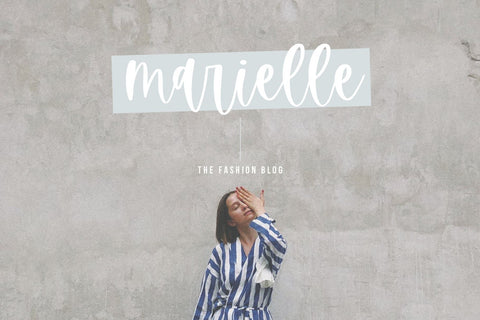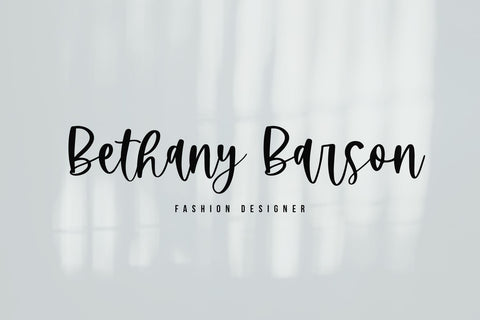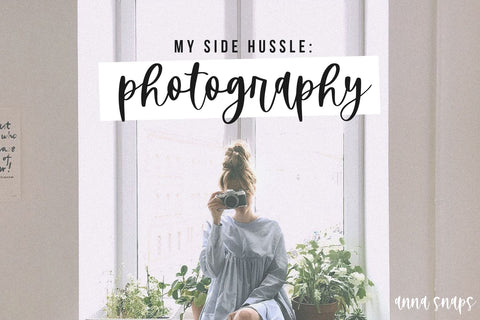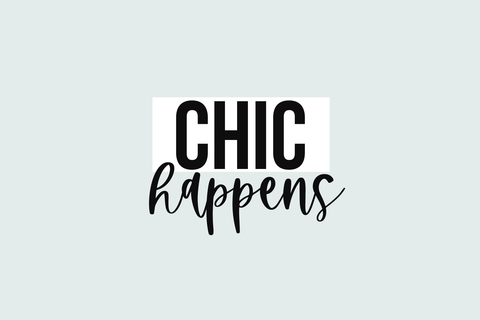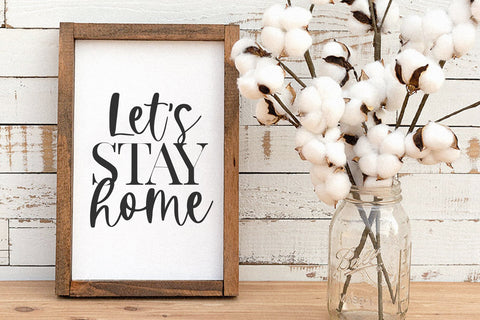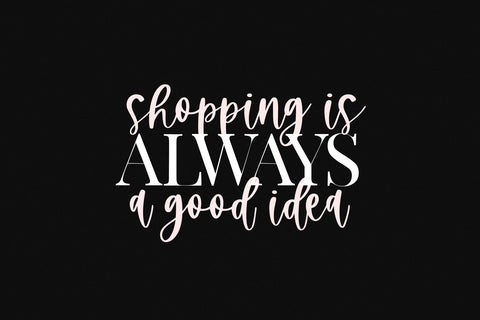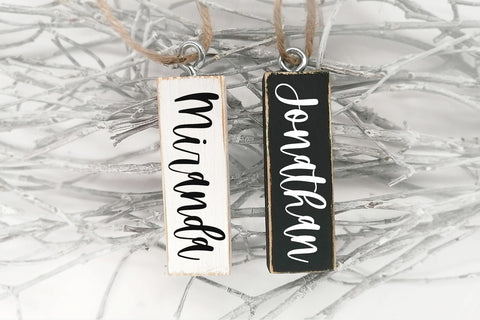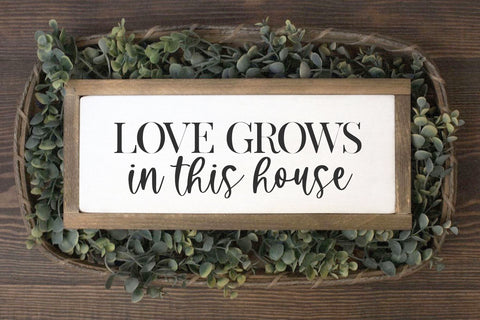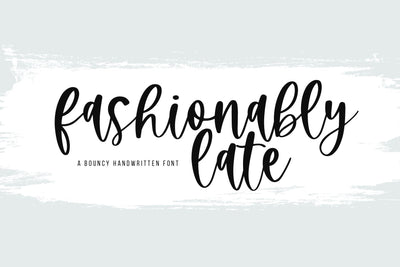
Fashionably Late - Handwritten Script Font
Fashionably Late is a bouncy handwritten script font!
This font is perfect for quotes, shirt designs, websites, branding, children's designs, blogs, logos, invitations, farmhouse decor, svg designs and more!
Most accent characters included.